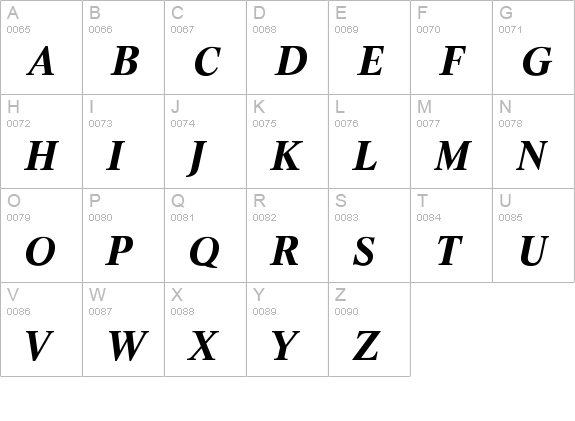
Life Bold Italic Font Details
Life Bold Italic is a strong, high-contrast, italic variant in the Life typeface family \xE2\x80\x94 well suited to headlines, attention-grabbing titles, and strong calls-to-action.